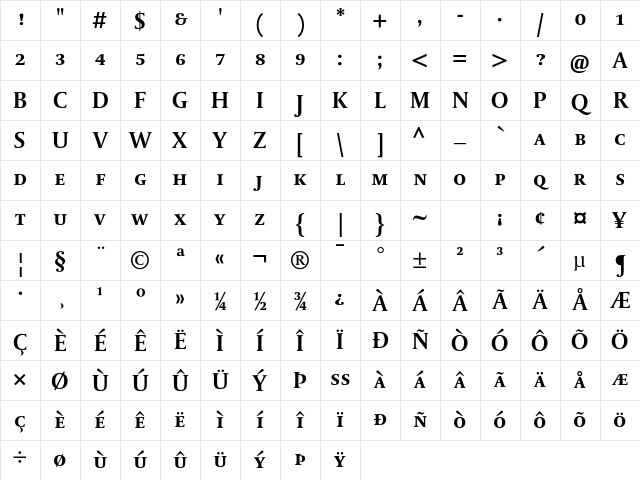
DTL Paradox T Caps Bold
Style: T Caps Bold
Design Context for DTL Paradox
DTL Paradox is a composed and adaptable typeface that performs quietly and consistently across a wide range of design contexts. Its bold stroke weight gives it real presence on the page.